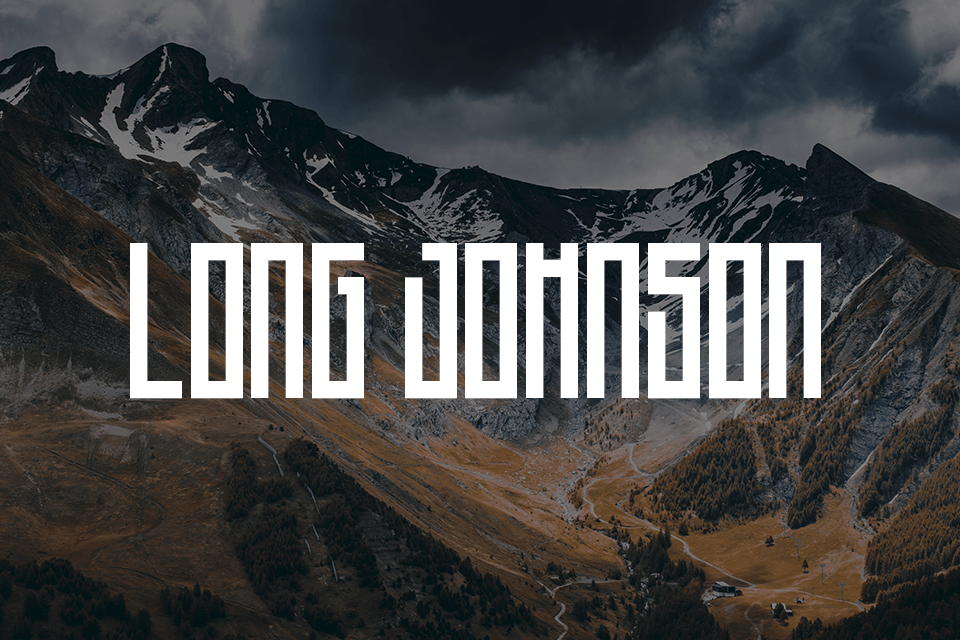
Review Of Free Illustrator Fonts For Logos 2023
Review Of Free Illustrator Fonts For Logos 2023. Web download unlimited logo fonts for commercial use on envato elements. Rbno2 is a new gothic sans.
Web Pair One Of These Free Logo Fonts With An Icon, And You Are Ready To Start Your Business.
Web Looking For Illustrator Fonts?
Web here is list of fourteen best free fonts for minimalist logo design: Web debby is a free font that designed to feel personal and imperfect with the irregular bouncy characters and rough shapes speak for itself. With a whole slew of styles & weights, these make awesome fonts for logos.